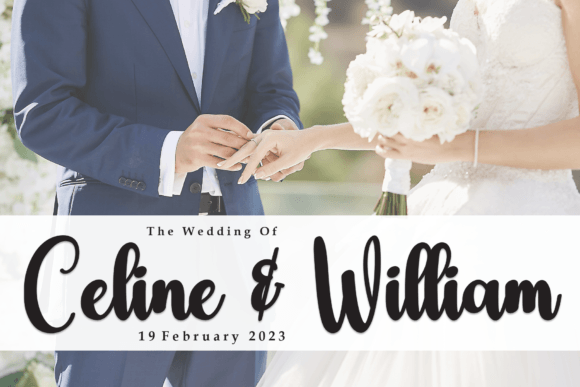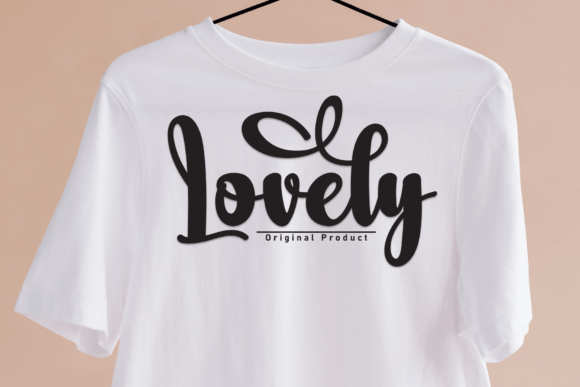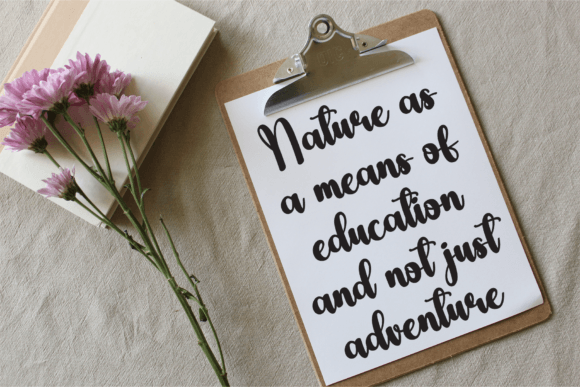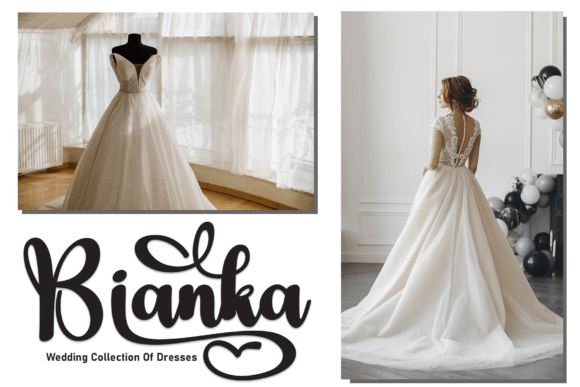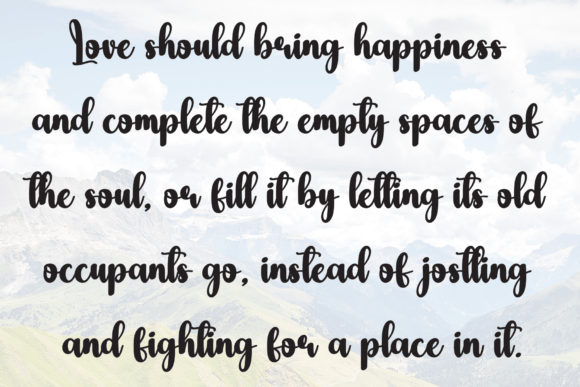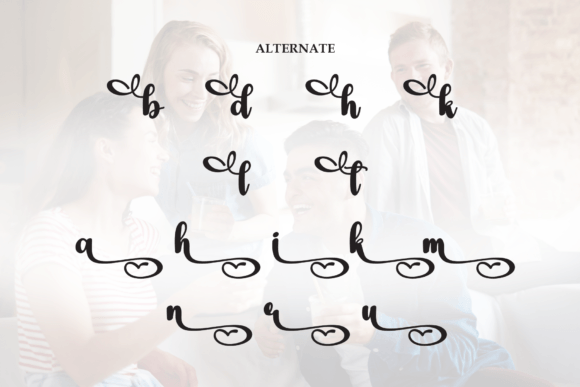
Introducing Friendly Font: The Sweet and Friendly Handwritten Display Font
Are you looking for a font that can add a touch of warmth and personality to your designs? Look no further than Friendly Font, a sweet and friendly handwritten display font that’s perfect for creating fun and engaging visual content. In this article, we’ll take a closer look at Friendly Font, its features, and how you can use it to elevate your designs.
What is Friendly Font?
Friendly Font is a beautiful, handwritten display font that’s designed to bring a smile to your face. With its cute and fun appearance, this font is ideal for writing wedding invitations, cards, or any other design that might need a fun touch. Whether you’re a designer, crafter, or DIY enthusiast, Friendly Font is a great addition to your font collection.
Key Features of Friendly Font
• Handwritten appearance: Friendly Font has a genuine handwritten look that’s perfect for creating personal and engaging designs.
• Cute and fun: This font is designed to be fun and playful, making it ideal for designs that require a lighthearted touch.
• Display font: Friendly Font is a display font, which means it’s perfect for headlines, titles, and other prominent text elements.
• Easy to read: Despite its playful appearance, Friendly Font is easy to read, making it suitable for body text and other longer content.
Use Cases for Friendly Font
Friendly Font is a versatile font that can be used in a variety of design projects. Here are some use cases to get you started:
• Wedding invitations: Add a touch of romance and whimsy to your wedding invitations with Friendly Font.
• Cards and stationery: Use Friendly Font to create fun and playful cards, invitations, and other stationery items.
• Social media graphics: Add a personal touch to your social media graphics with Friendly Font.
• DIY projects: Use Friendly Font to add a handmade touch to your DIY projects, such as craft tutorials, blog posts, and more.
Tips for Using Friendly Font
Here are some tips for getting the most out of Friendly Font:
• Use it sparingly: Friendly Font is a display font, so use it sparingly to add emphasis to your designs.
• Pair it with other fonts: Combine Friendly Font with other fonts to create a unique and engaging visual style.
• Experiment with colors: Friendly Font looks great in a variety of colors, so don’t be afraid to experiment and find the perfect hue for your design.
Friendly Font is a sweet and friendly handwritten display font that’s perfect for adding a touch of warmth and personality to your designs. With its cute and fun appearance, ease of use, and versatility, Friendly Font is a great addition to any designer’s or crafter’s font collection. Whether you’re creating wedding invitations, cards, social media graphics, or DIY projects, Friendly Font is sure to bring a smile to your face and a touch of whimsy to your designs.